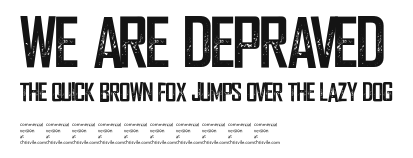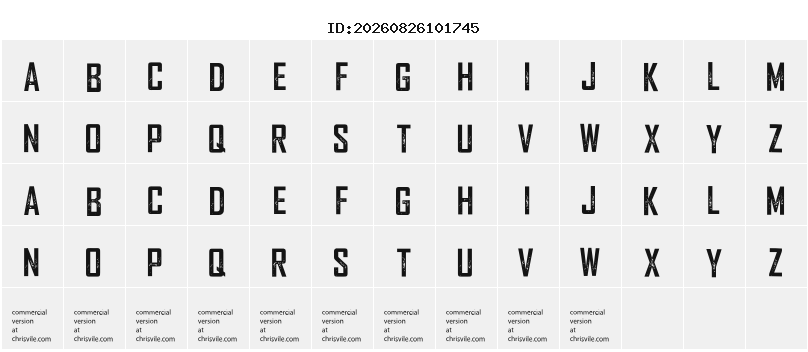
We are Depraved Preview
• Font Name: We are Depraved
• Designer: Chris Vile
• Manufacturer: Font Monger
• Description: We are Depraved is a font by Font Monger , designed by Chris Vile in 2013.
About We are Depraved.otf
We are Depraved.otf is a modern, elegant sans-serif font designed for ultimate readability and visual harmony. Perfect for branding, headlines, web design, and print materials.